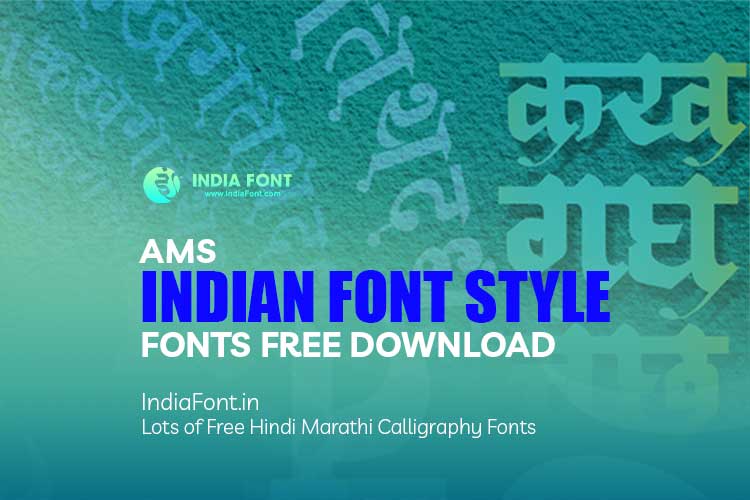
In the realm of design, font styles play a pivotal role in conveying emotions, setting the tone, and enhancing visual appeal. At IndiaFont, we take pride in curating a collection of the best Indian font styles that cater to a spectrum of creative needs. Whether you're aiming for elegance, simplicity, or a bold statement, our diverse range of font styles is here to elevate your designs.
Experience the rich cultural heritage of India through fonts that capture the essence of traditional scripts while embracing modern design principles.
🎨 Diverse Style Range
From elegant calligraphy to bold handwriting styles, our collection offers the perfect typography for every creative project and design vision.
Compassionate font style with gentle curves and emotional depth perfect for heartfelt designs
Emotional
Strong and determined font style with bold characteristics ideal for impactful messaging
Bold
Life-inspired font style with vibrant energy perfect for dynamic and lively designs
Dynamic
Moon-like font style with serene beauty and elegant flow ideal for peaceful designs
Elegant
Handcrafted artistic font with traditional craftsmanship perfect for cultural projects
Artistic
Original artistic font celebrating traditional Indian handicraft aesthetics
Traditional
Natural handwriting style with authentic pen-and-paper feel perfect for personal designs
Handwritten
Casual handwriting font with relaxed characteristics ideal for informal communication
Casual
Refined handwriting style balancing formality and personal touch
Refined
Classic handwriting font with timeless appeal perfect for versatile applications
Classic
Pride-inspired bold font with commanding presence perfect for powerful statements
Bold
Dignified font style with honorable characteristics ideal for prestigious projects
DignifiedUnveiling the Essence of Indian Font Styles
The rich cultural tapestry of India is mirrored in its script and languages, each possessing a unique aesthetic. Our collection of Indian font styles encapsulates this diversity, offering fonts that resonate with tradition, modernity, and everything in between. With a deep appreciation for the nuances of design, we have meticulously selected and crafted font styles that celebrate India's linguistic and artistic heritage.
Cultural Heritage in Typography
Each font in our collection tells a story rooted in India's rich traditions, from ancient scripts to contemporary interpretations. Experience typography that honors cultural authenticity while meeting modern design demands.
Navigating the World of Font Styles
Diving into our treasure trove of font styles, you'll encounter a myriad of options, each telling a distinct visual story. From elegant and ornate font styles that evoke a sense of grandeur to simple and clean font styles that exude sophistication, our collection empowers you to choose the perfect typography for your projects.
Handwriting Fonts
Natural, authentic handwritten styles that bring a personal touch to your designs. Perfect for invitations, personal branding, and intimate communications.
Artistic & Cultural
Fonts that celebrate traditional Indian art forms and craftsmanship, ideal for cultural projects, heritage brands, and artistic expressions.
Bold & Dynamic
Strong, impactful fonts designed to make statements and capture attention. Perfect for headers, logos, and promotional materials.
Elegant & Refined
Sophisticated fonts that balance tradition with contemporary elegance, suitable for premium branding and refined design projects.
Embrace Elegance with Indian Font Styles
If elegance is your aspiration, our Indian font styles have you covered. Imagine text that dances gracefully across the canvas, leaving an indelible mark on the viewer's perception. Our font styles blend tradition with contemporary sensibilities, creating a harmonious fusion that is both captivating and timeless.
Timeless Beauty
Fonts that transcend trends, offering enduring appeal that remains relevant across different design eras and cultural contexts.
Graceful Flow
Letterforms that flow naturally, creating harmonious text layouts that are pleasant to read and visually appealing.
Sophisticated Presence
Typography that elevates your content, adding a layer of refinement and professionalism to any design project.
Stand Out with Unique Font Styles
Transform Your Designs with Authentic Indian Typography
As you venture into the world of Indian font styles, remember that every typeface tells a story. It has the power to transform words into emotions, concepts into visions, and messages into memories. With our collection of font styles, you have the means to craft narratives that resonate with your audience, making your designs a true reflection of your creative essence.